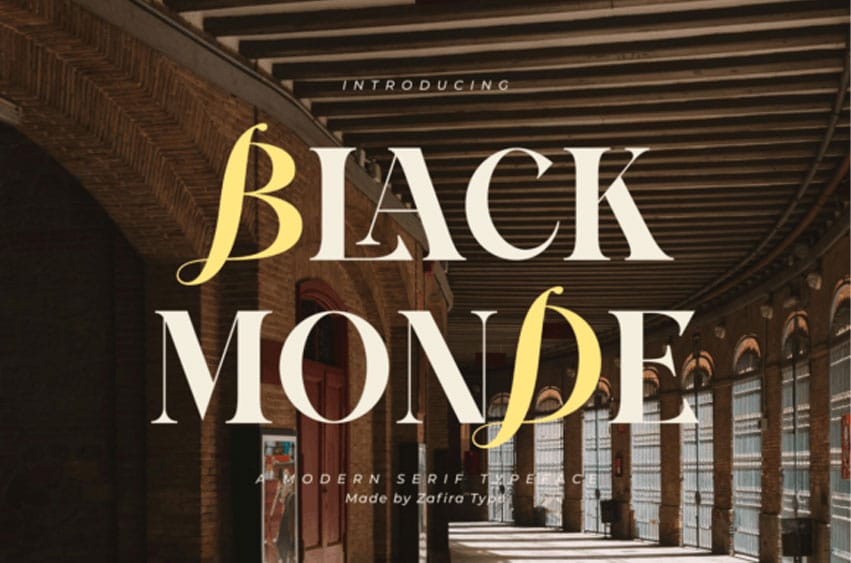
Black Monde Font is an extraordinary serif font that effortlessly embodies a blend of grandeur and grace. Its distinctive and polished letter shapes make it indispensable for designers striving to infuse an aura of refinement into luxury branding, top-tier editorial creation, or high-end packaging designs.
The delicate serif detailing imbues a timeless charm. At the same time, the robust weight and proportions of the characters lend a trendy edge, rendering Black Monde adaptable across a spectrum of design domains.
Black Monde stands tall in the realm of headlines, logos, and any venture that calls for a potent visual impact. It’s where old-world charm mingles with the new-age aesthetic, providing an impeccable fusion of tradition and ultramodern design, delivering functionality bathed in beauty.